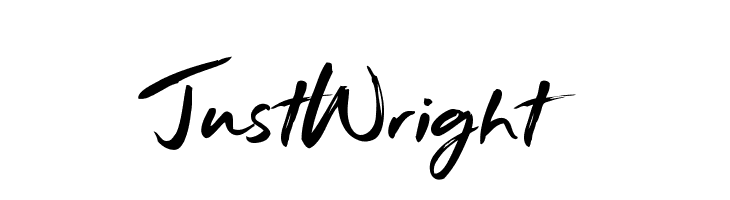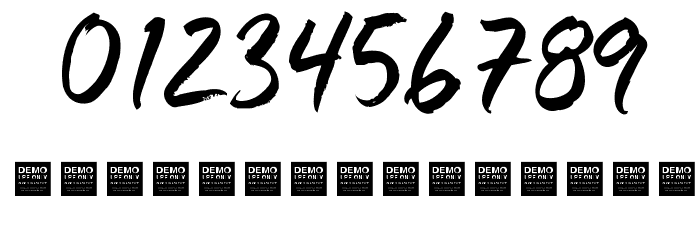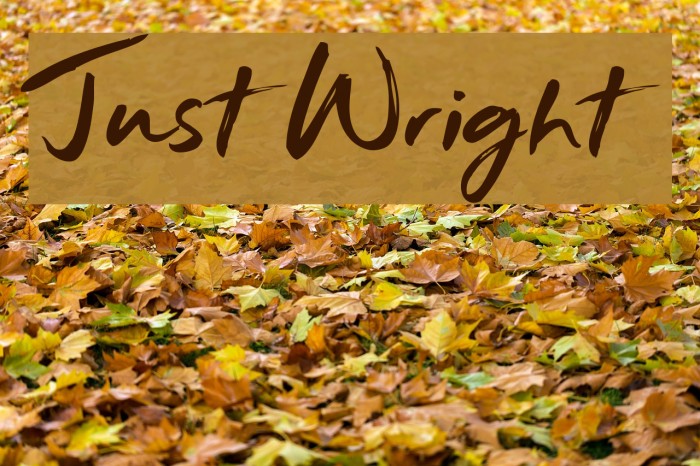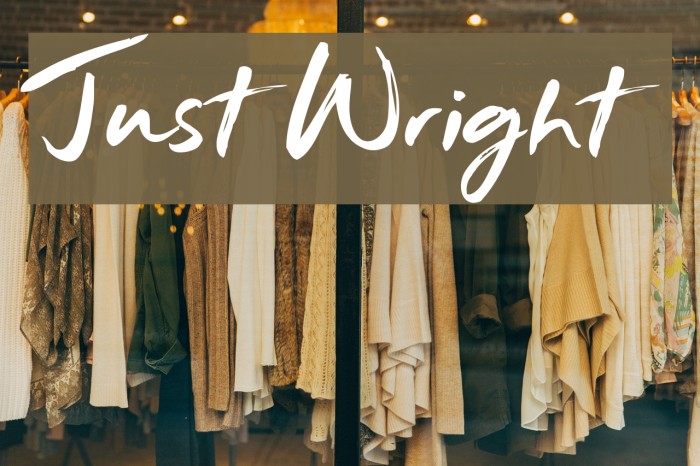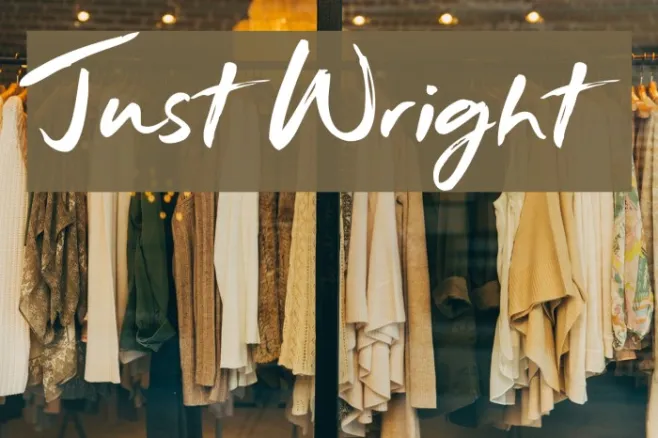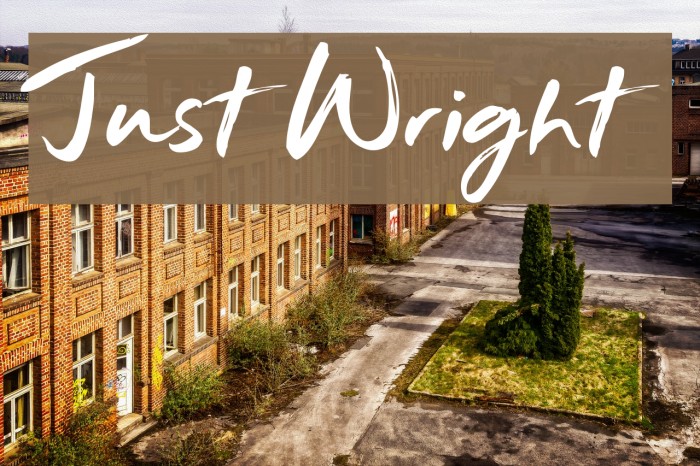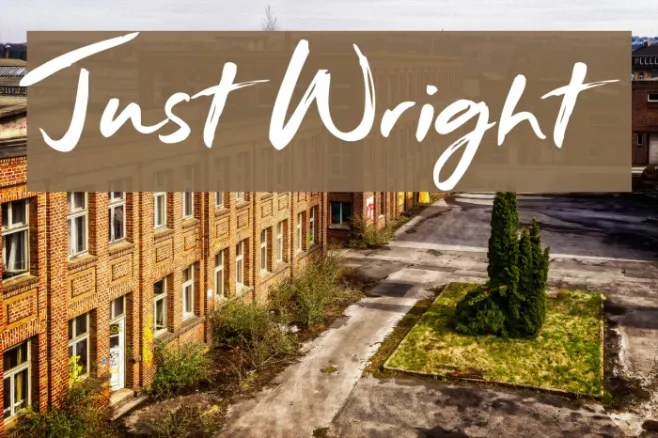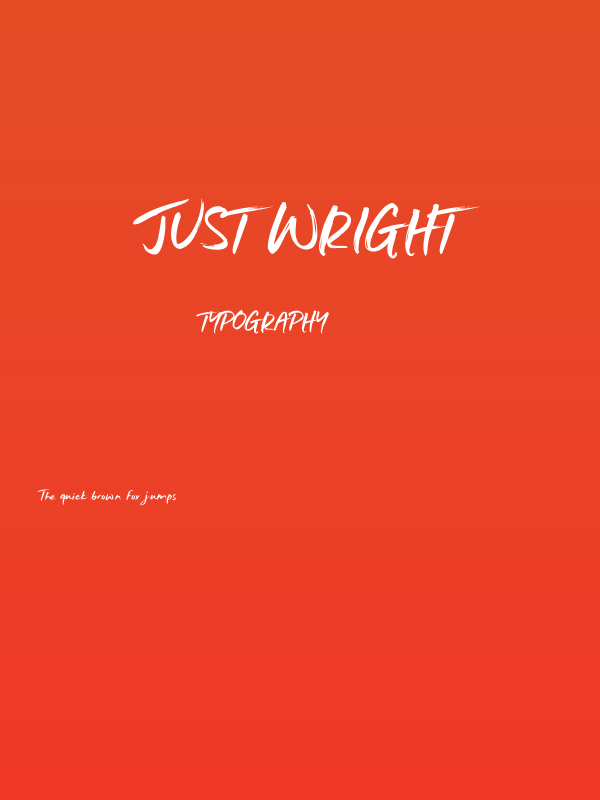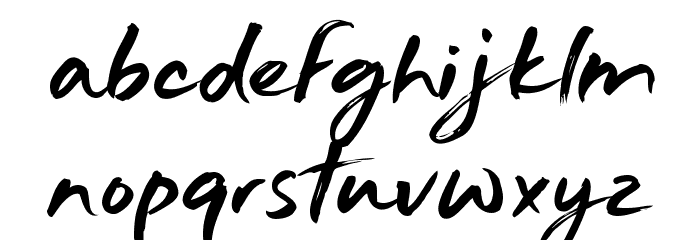
Just Wright Font
Just Wright Description
This font exudes a dynamic and expressive style, characterized by its brush-like strokes that convey a sense of movement and fluidity. The letters are crafted with a natural, hand-drawn appearance, featuring varying stroke widths that add depth and character. The uppercase letters are bold and assertive, while the lowercase letters maintain a more casual and approachable feel. The numerals are consistent with the overall style, ensuring a cohesive look across all characters. This font's unique personality makes it stand out, offering a blend of artistic flair and readability.